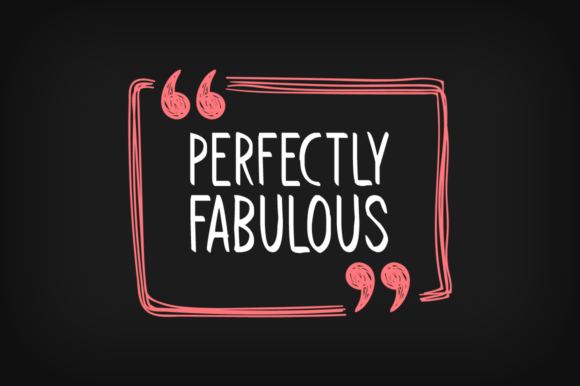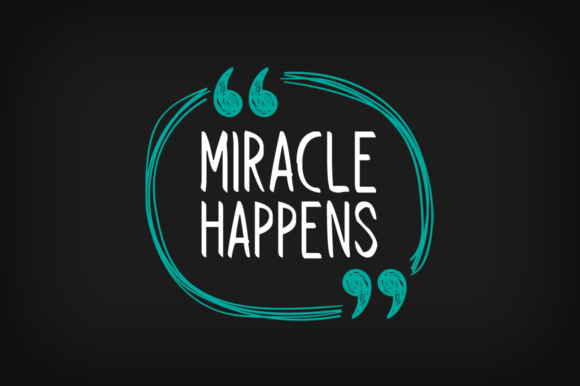
Introduction to Follow Through Font
You know that feeling when you’re brainstorming ideas for a creative project, and suddenly, the perfect font pops into your mind? For many designers, that moment is what sets the entire project in motion. Whether you’re working on a social media campaign, crafting a wedding invitation, or planning a DIY project, the right font can elevate your design from good to great.
That’s where the Follow Through Font comes in – a stunning display font that combines elegance and charm in equal measure. With its versatility and high-quality design, it’s no wonder that designers are clamoring to get their hands on this beautiful font. Whether you’re looking for a free download or a design resource to take your projects to the next level, the Follow Through Font is an invaluable asset for any creative.
From transparent backgrounds to intricate calligraphy scripts, this font offers endless possibilities for designers looking to add a touch of sophistication to their work. In this article, we’ll delve into the world of the Follow Through Font and explore its many uses, from Instagram-friendly designs to high-end creative projects.
Key Features of Follow Through Font
- High-quality design: Follow Through Font offers a unique and creative design perfect for various projects.
- Transparent background: The font’s transparent background allows for easy integration with other design elements.
- High-resolution design: The font is designed with high resolution in mind, ensuring it looks great in various sizes and resolutions.
- Perfect for creative projects: This font is ideal for designers working on creative projects, such as logos, posters, and digital art.
- High-quality design resource: Follow Through Font is a valuable addition to any designer’s collection, offering a unique and creative touch to any project.
Honest Review: Follow Through Font
As a designer, I was excited to dive into the world of the Follow Through Font, a creative project that promises to elevate my design work. Upon closer inspection, I found some impressive features that make it a valuable design resource.
- ✨ High-quality glyphs and characters that are perfect for creating eye-catching designs
- ✨ A transparent background option that allows for seamless integration into any creative project
However, I did encounter some limitations that prevent me from giving it a full 5-star rating. Here are a few things to keep in mind:
Overall, I’m impressed with the Follow Through Font and its potential to enhance my design work. With a little caution regarding licensing and file size, I highly recommend it as a valuable design resource for any creative project.
Tips for Getting the Most Out of Follow Through Font
For a high-quality design, use the Follow Through Font with a transparent background to create a seamless design element. You can also experiment with different font sizes and colors to achieve a unique look.
The Follow Through Font is perfect for a variety of creative projects, including infographics, presentations, and social media graphics. Its high-quality design makes it a great resource for any design project that requires a professional touch.